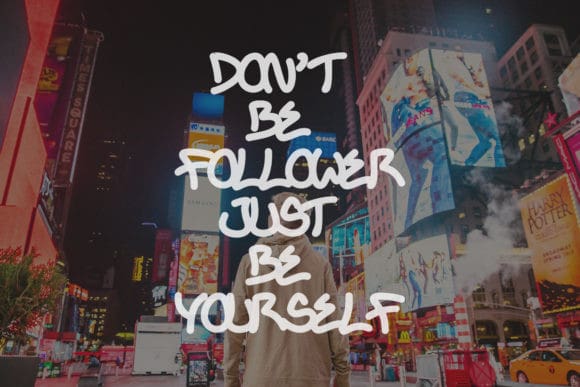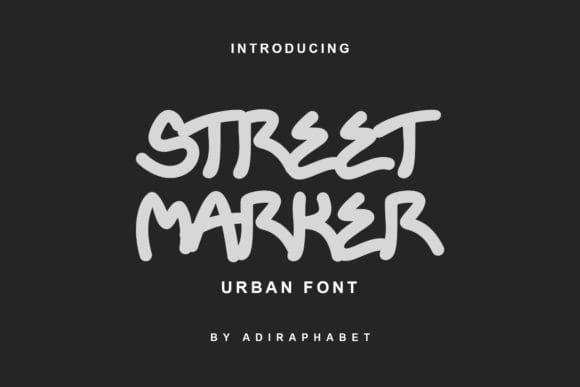
Street Marker Font
Street Marker Font is a cool and urban styled display font. This original look will appeal to a wide range of crafty ideas, from letterheads and titles, to stationery.